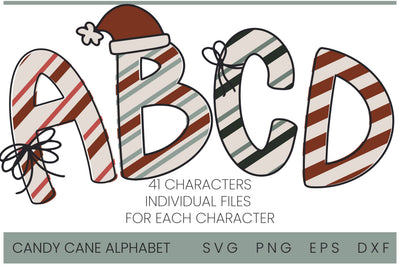
Candy Cane Alphabet, Christmas Lettering, Layered Holiday Doodle Lettering
This Candy Cane alphabet is perfect for all your creative projects! Whether you're a Cricut enthusiast or simply looking for a charming cursive font, this handwritten Christmas gem is exactly what you need. With its playful candy cane design, our cute doodle letters bring a delightful touch to invitations, greeting cards, and personalized crafts. Crafted specifically for Cricut users, this font is perfect for your Cricut SVG designs, ensuring seamless compatibility with your cutting machine. Transform your designs into stunning works of art with our versatile cute script font, the ultimate choice for anyone seeking a captivating and expressive typeface for their projects.